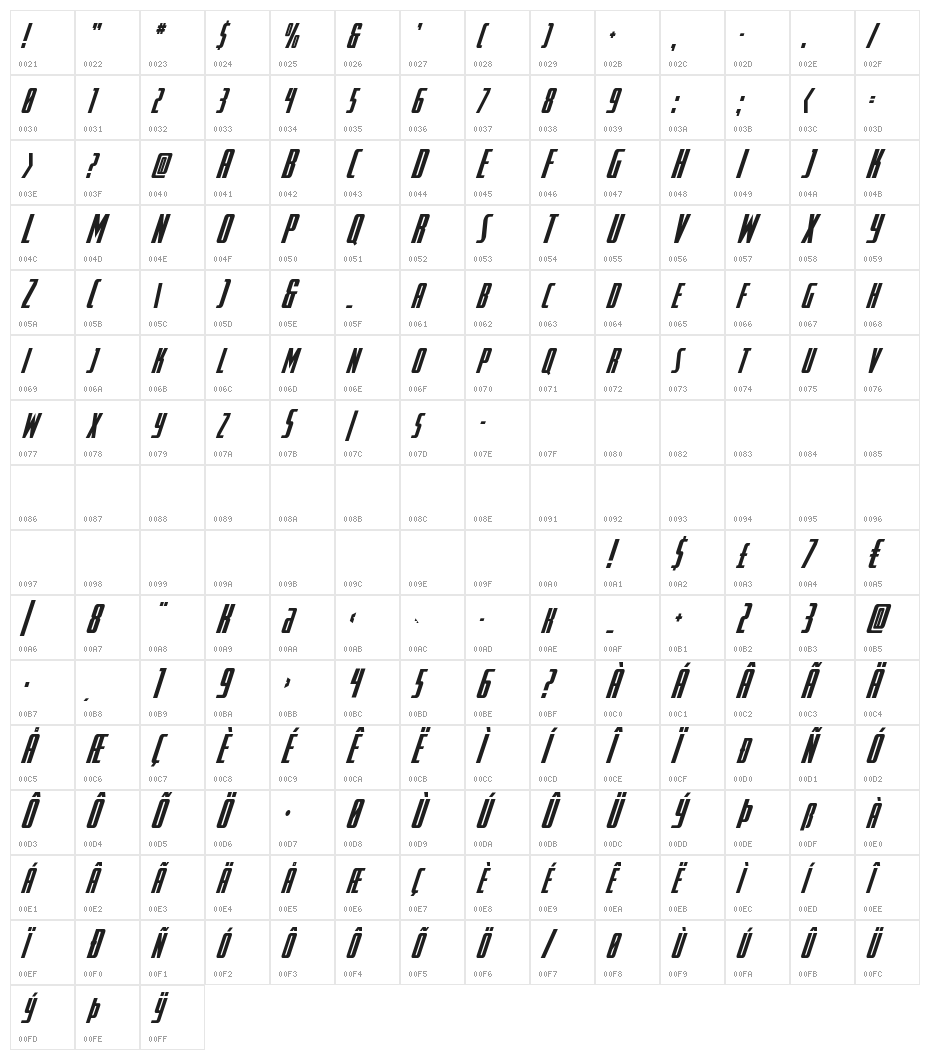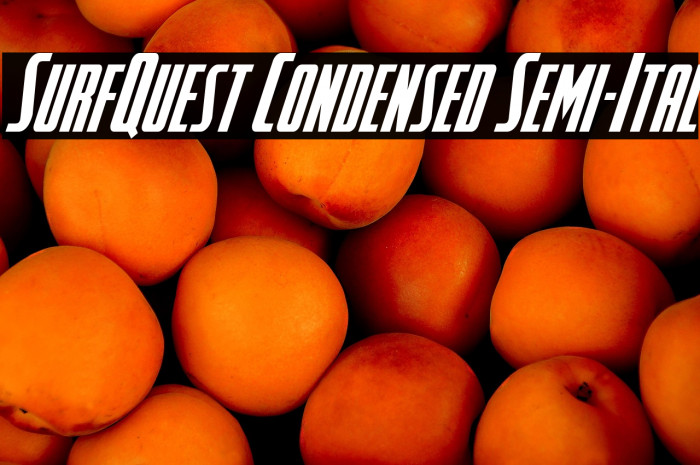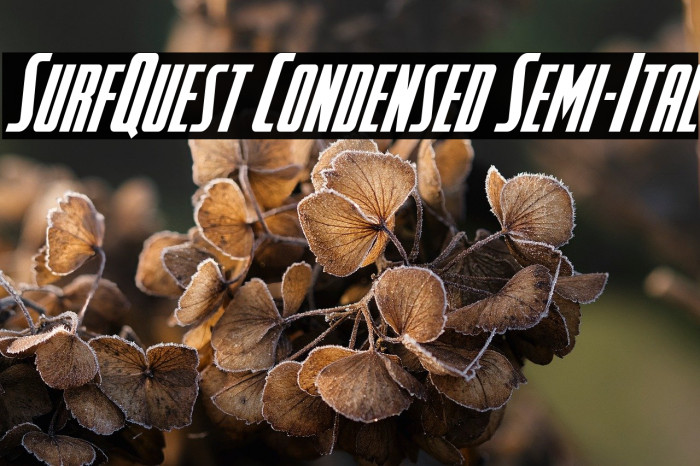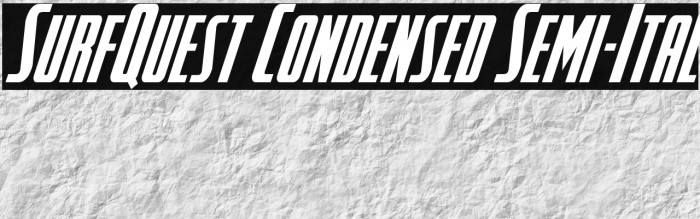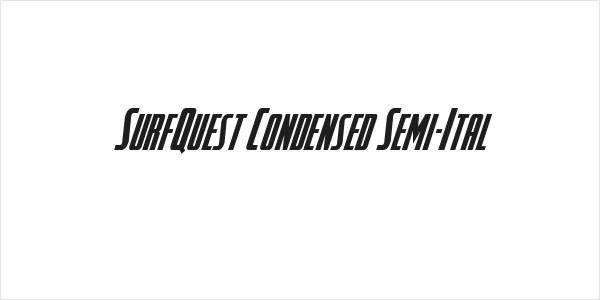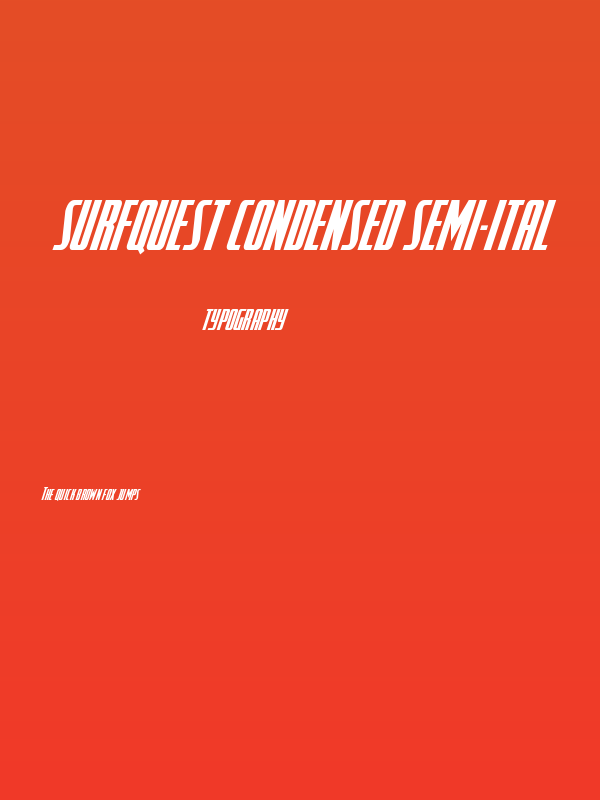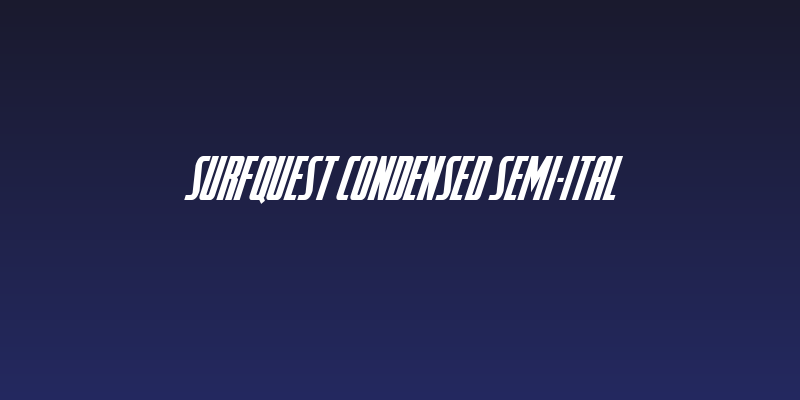
SurfQuest Condensed Semi-Ital Font
SurfQuest Condensed Semi-Ital Description
This font features a bold, condensed style with a semi-italic slant, giving it a dynamic and energetic appearance. The characters are tightly spaced, enhancing its compact and streamlined look. The strokes are thick and consistent, providing a strong visual impact. The overall design is modern and sleek, making it suitable for projects that require a bold statement. Its angular and sharp edges contribute to a sense of movement and urgency, ideal for attention-grabbing headlines or branding materials.
| Proposed Projects | Ideal for sports branding, dynamic posters, modern advertising, and impactful headlines. |